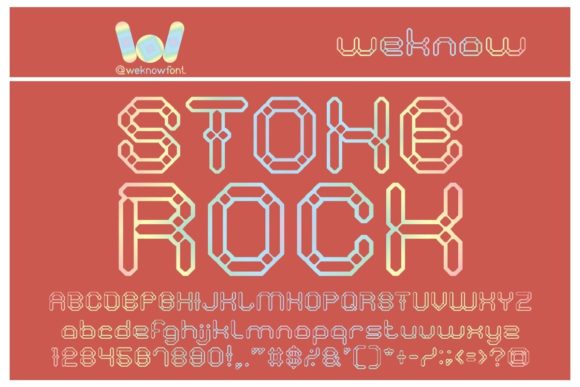
Behold the Stone Rock Font, where elegance meets intrigue, crafting a unique charm that will captivate audiences. Experience the brilliance of this display font, a masterpiece designed to elevate your digital creations beyond imagination.
Step into a world where your shopping website radiates with a captivating aura, thanks to the Stone Rock Font. Its modern yet whimsical strokes infuse life into every corner of your online store, creating an unforgettable shopping experience that keeps customers coming back for more.
Unleash your creativity and let the Stone Rock Font take center stage. Whether you're designing product descriptions that resonate or crafting promotional banners that grab attention, this font has the power to transform ordinary text into a magnetic force that draws visitors in.
With Stone Rock Font, every design element becomes an artistic expression, reflecting your brand's unique personality and captivating your audience's hearts. Prepare to witness a surge in customer engagement and conversions as your website transforms into a captivating shopping haven.
Immerse yourself in a world of endless possibilities with the Stone Rock Font. Let it guide you on a journey of creativity, where boundaries dissolve, and imagination reigns supreme. Experience the magic of typography as your designs reach new heights, captivating and enchanting all who encounter them.